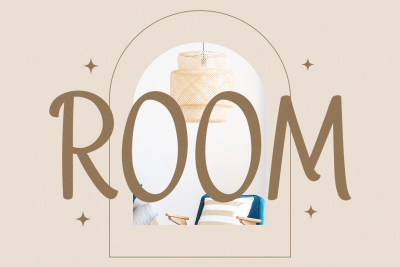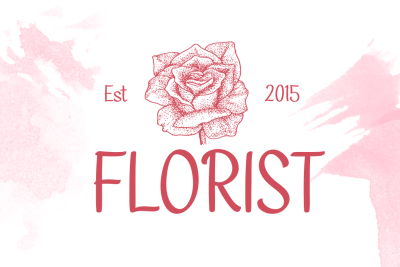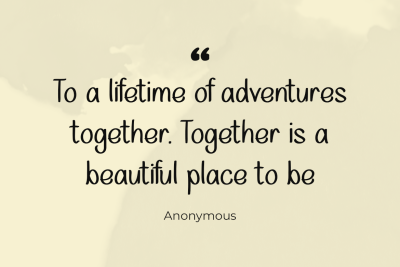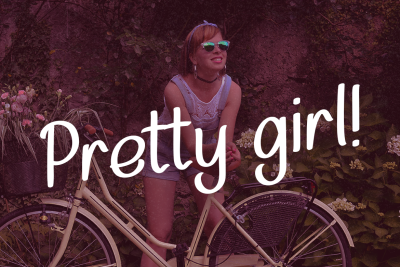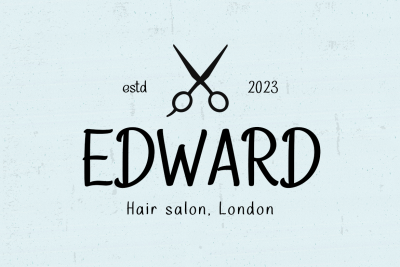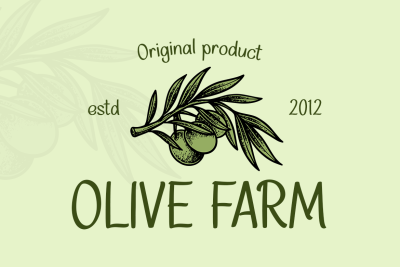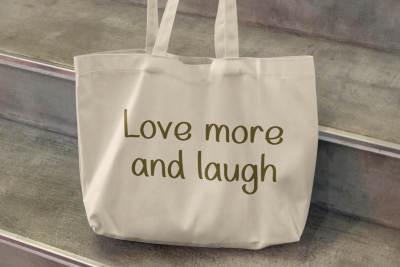
Additionally, the font is particularly beneficial for content creators and influencers. It enhances Instagram posts, captions, and stories with a personal touch. Kamilia is perfect for lifestyle, fashion, wellness, and beauty brands. In fact, it adds relatability and approachability to their messaging. For small businesses, it is a great choice for flyers, brochures, and advertisements to create a cohesive brand identity.
On top of that, Kamilia also shines in traditional design projects. It gives wedding invitations, greeting cards, and event flyers a soft, welcoming touch. Bloggers and entrepreneurs can use Kamilia for logos, website headers, and promotional materials. Thanks to its clean form, it ensures your designs look great across all mediums.
In addition, Kamilia is easy to customize, making it ideal for personalized designs. You can adjust the size, weight, and spacing to suit your projectโs unique needs. Whether youโre crafting a logo, creating a website, or designing a marketing campaign, Kamilia will help you achieve the perfect look.
In conclusion, Kamilia is ideal for anyone who wants to make a lasting impact. Whether for personal or professional projects, it adds both elegance and warmth. Consequently, its versatility makes it a valuable tool for creating stylish, engaging designs. With Kamilia, your work will stand out and leave a memorable impression.